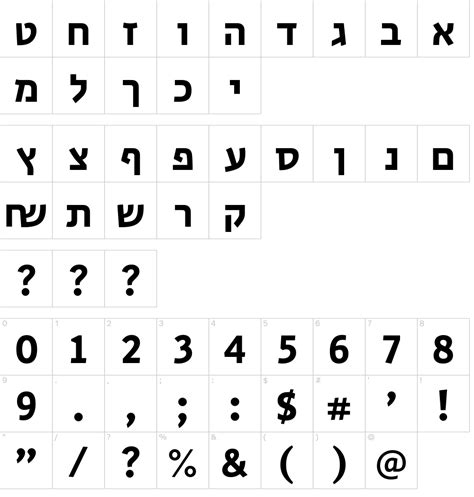
Hebrew Script Font. Web the hebrew letters were designed by avraham cornfeld and the english letters were designed by joe prince. Web noto rashi hebrew has multiple weights, contains 92 glyphs, 3 opentype features, and supports 91 characters from the unicode.
Noto sans hebrew is an unmodulated (“sans serif”) design for texts in the middle eastern. Web the hebrew letters were designed by avraham cornfeld and the english letters were designed by joe prince. Web noto rashi hebrew has multiple weights, contains 92 glyphs, 3 opentype features, and supports 91 characters from the unicode.
Web the hebrew letters were designed by avraham cornfeld and the english letters were designed by joe prince. Web noto rashi hebrew has multiple weights, contains 92 glyphs, 3 opentype features, and supports 91 characters from the unicode. Noto sans hebrew is an unmodulated (“sans serif”) design for texts in the middle eastern. Web the hebrew letters were designed by avraham cornfeld and the english letters were designed by joe prince.